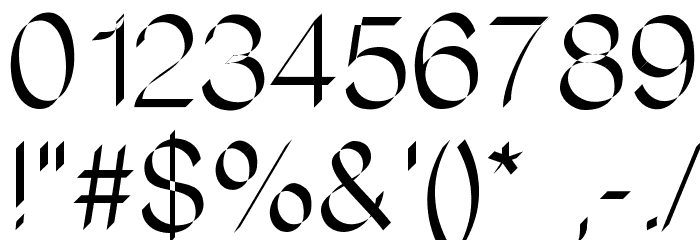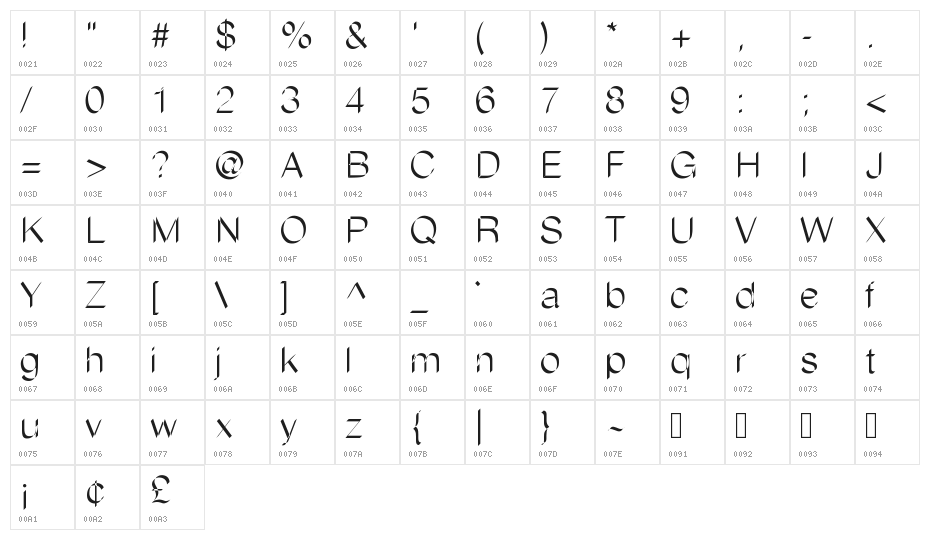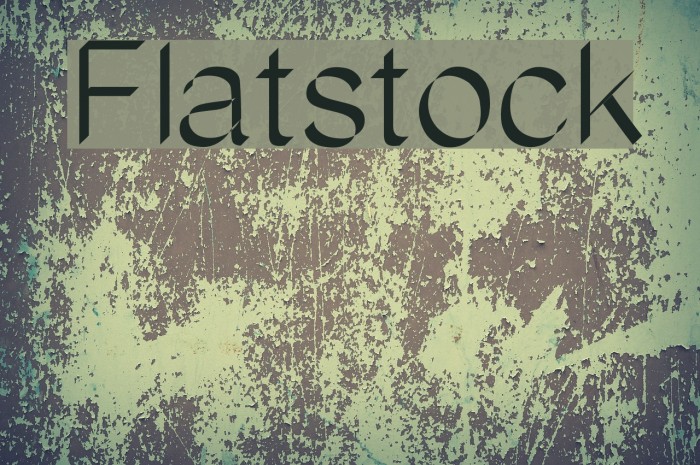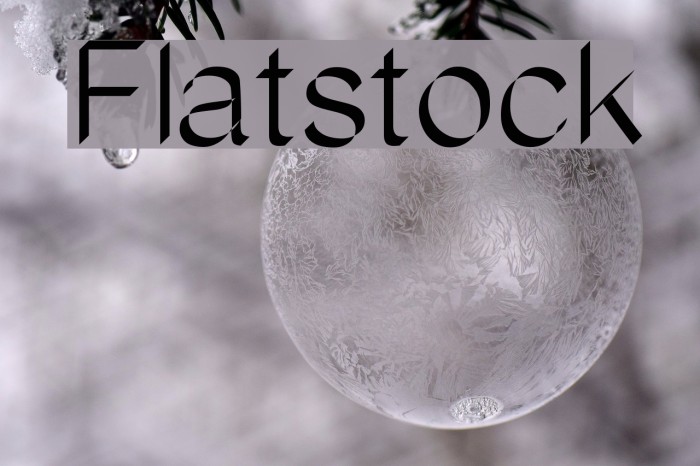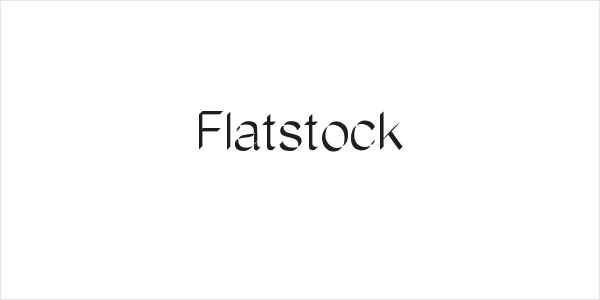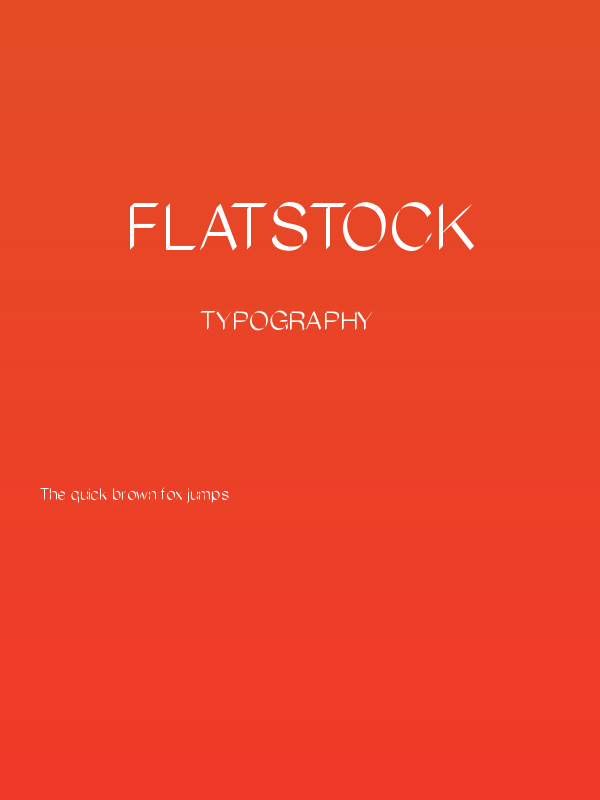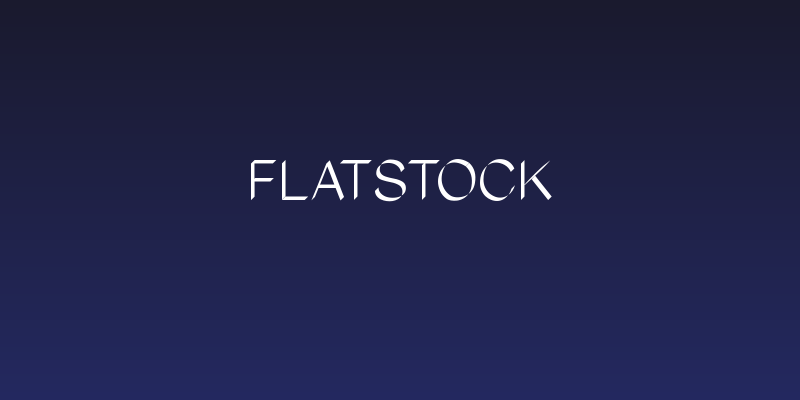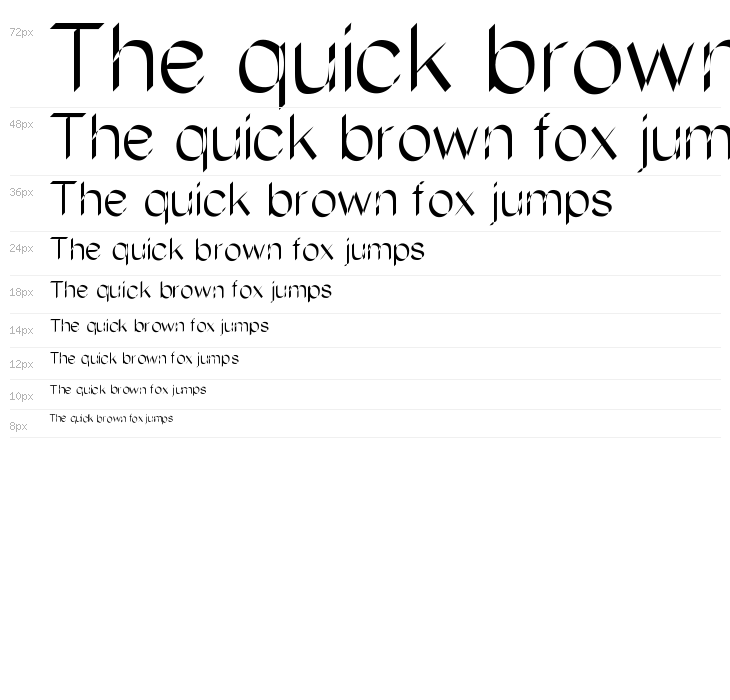
Flatstock Font
Flatstock Description
This font features a modern and innovative design with a unique twist. Each character is crafted with a distinct diagonal cut, creating a dynamic and edgy appearance. The uppercase and lowercase letters maintain a consistent style, with clean lines and sharp angles. The numerals and special characters follow the same design principle, ensuring a cohesive look across all elements. This font stands out with its high contrast between thick and thin strokes, adding to its bold and striking presence. The overall style is contemporary and artistic, making it suitable for creative and eye-catching designs.
| Proposed Projects | Ideal for branding, advertising, posters, and digital artwork where a bold statement is needed. |